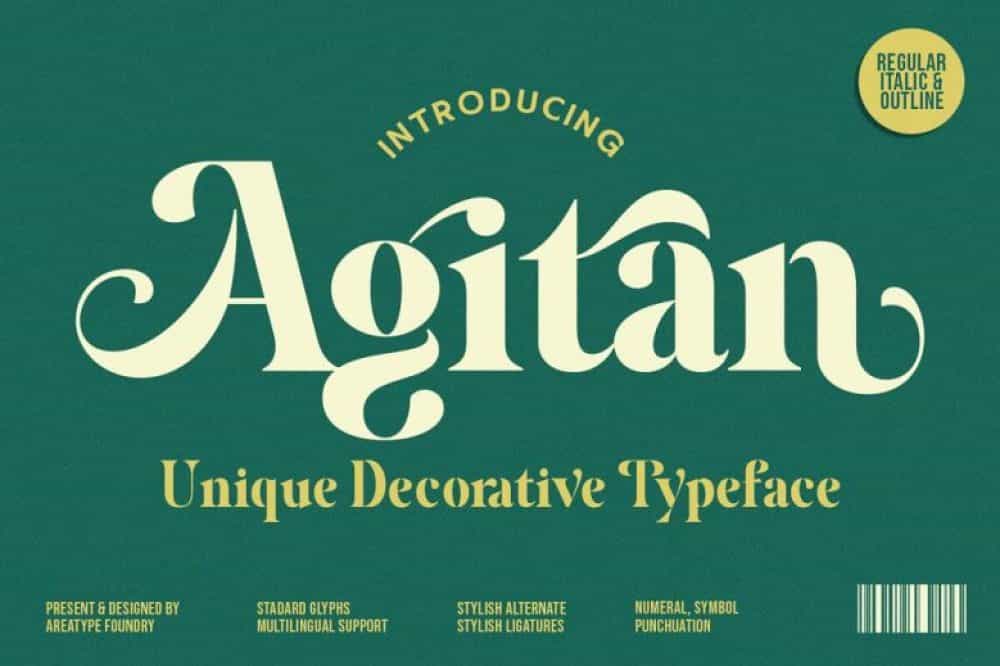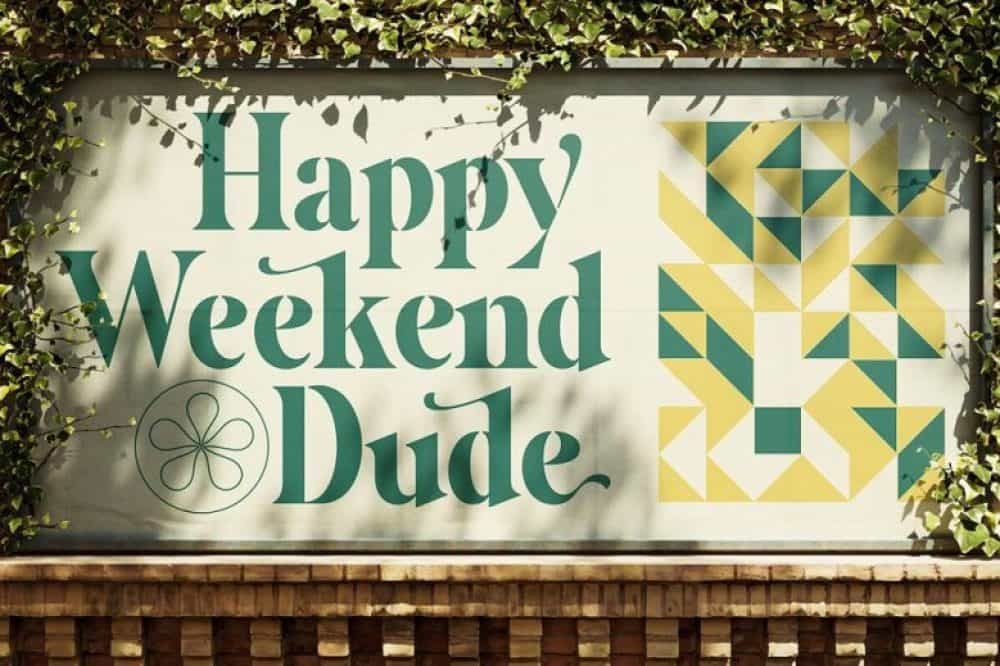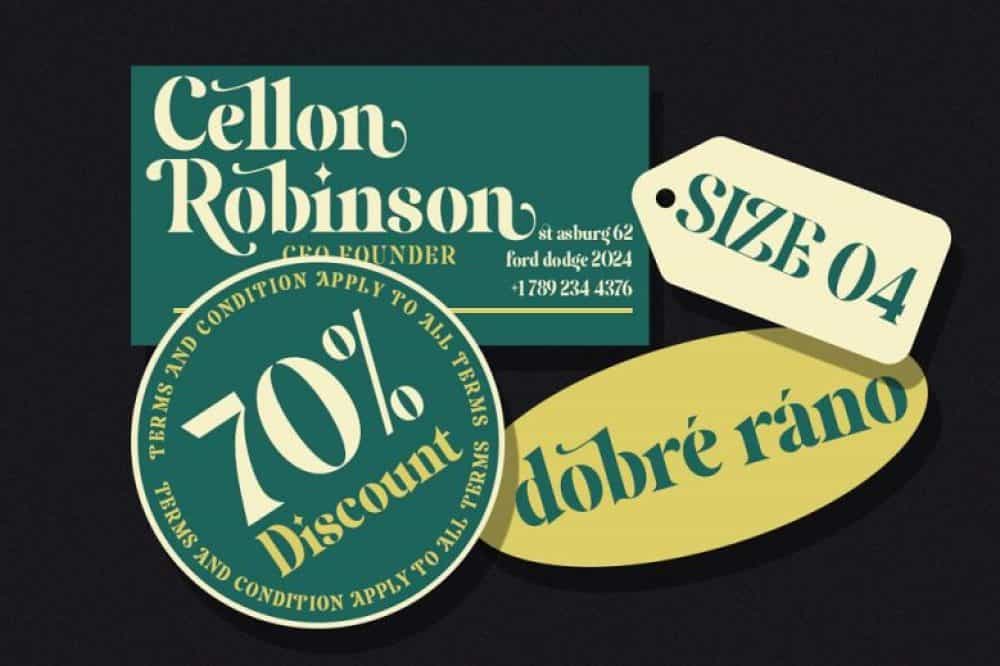
Agitan is another elegant and beautiful font with a serif style design. It is more delicate and tender and has a feminine look; therefore, it is suitable for delicate designs. It’s suitable for any projects such as: logos, packaging projects, product design, posters, shopping bags, t-shirts, book covers, name card, invitation cards, greeting cards, etc.